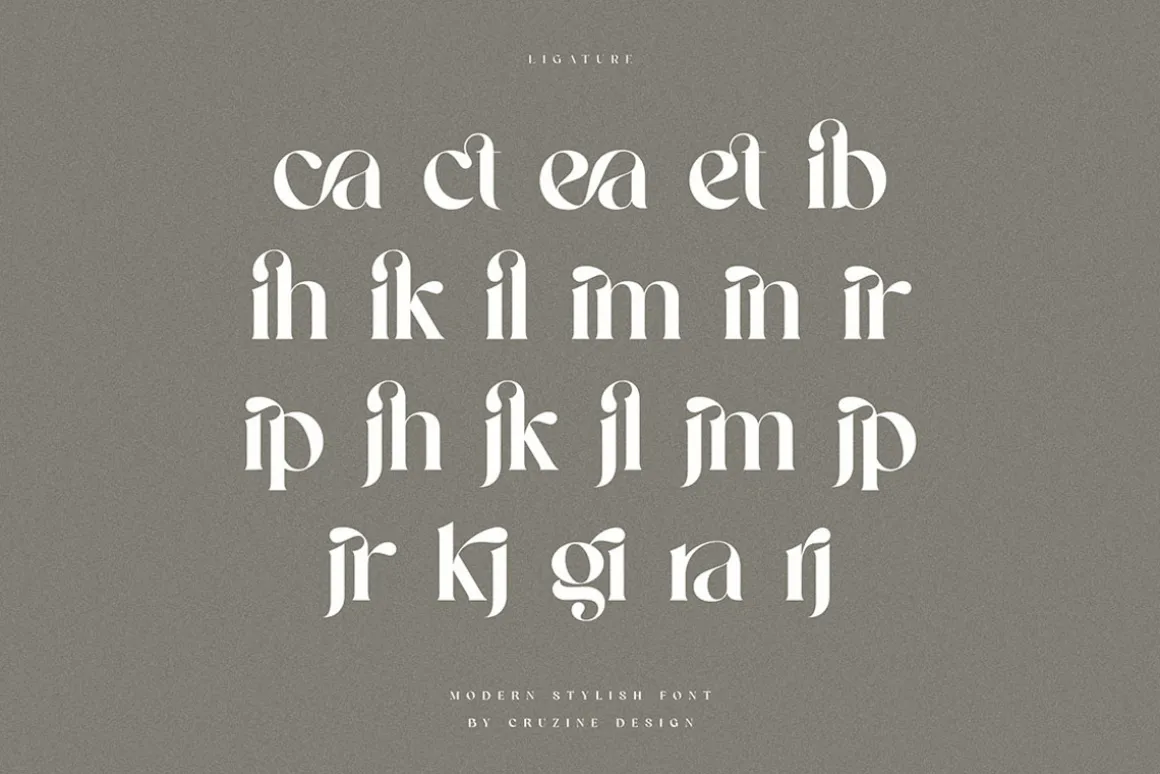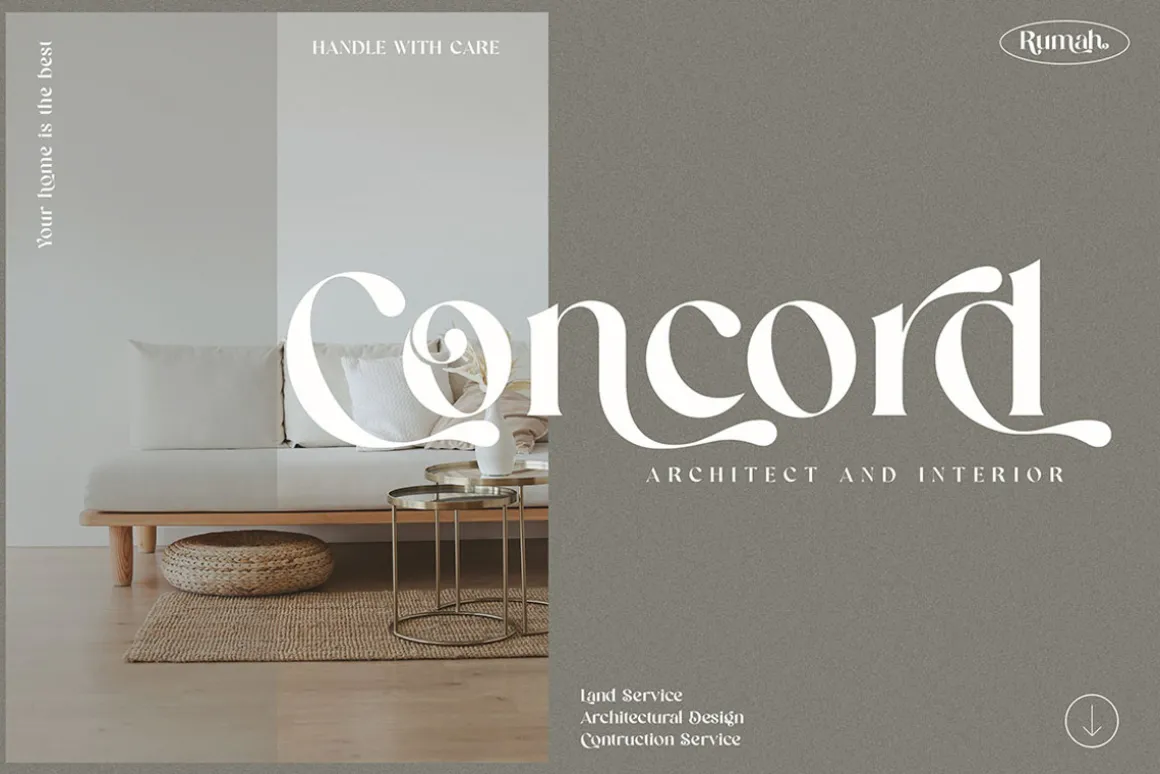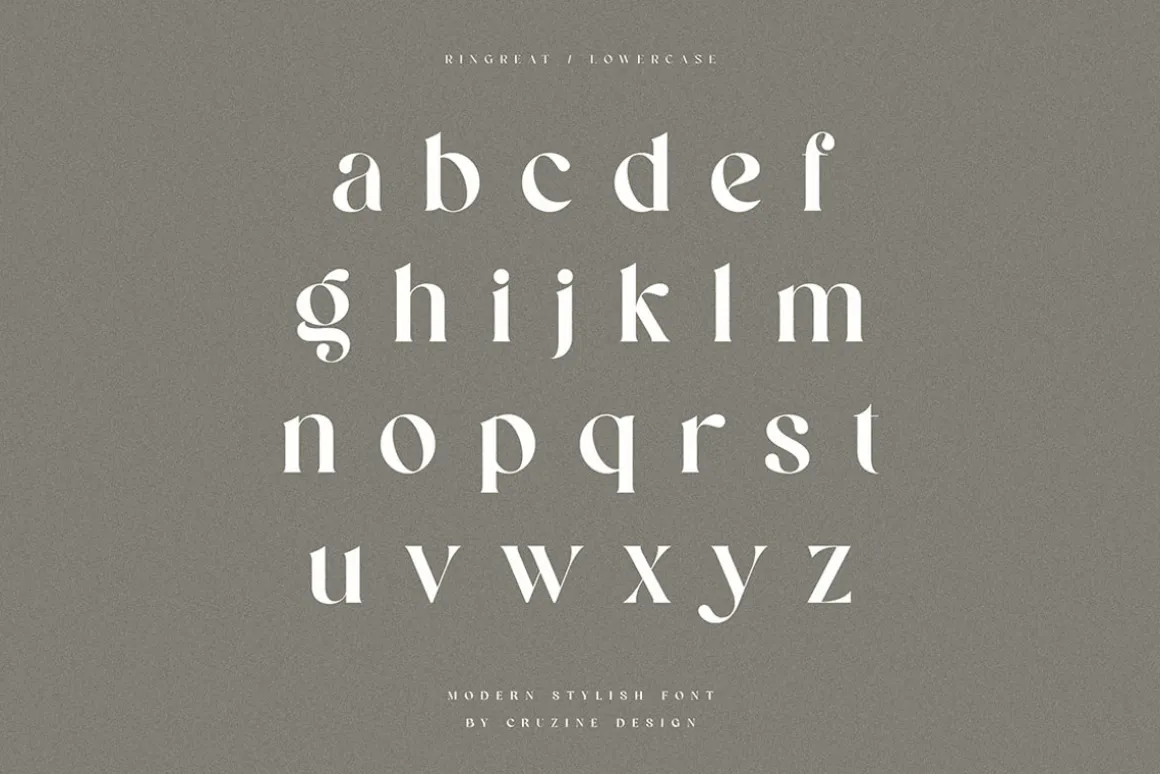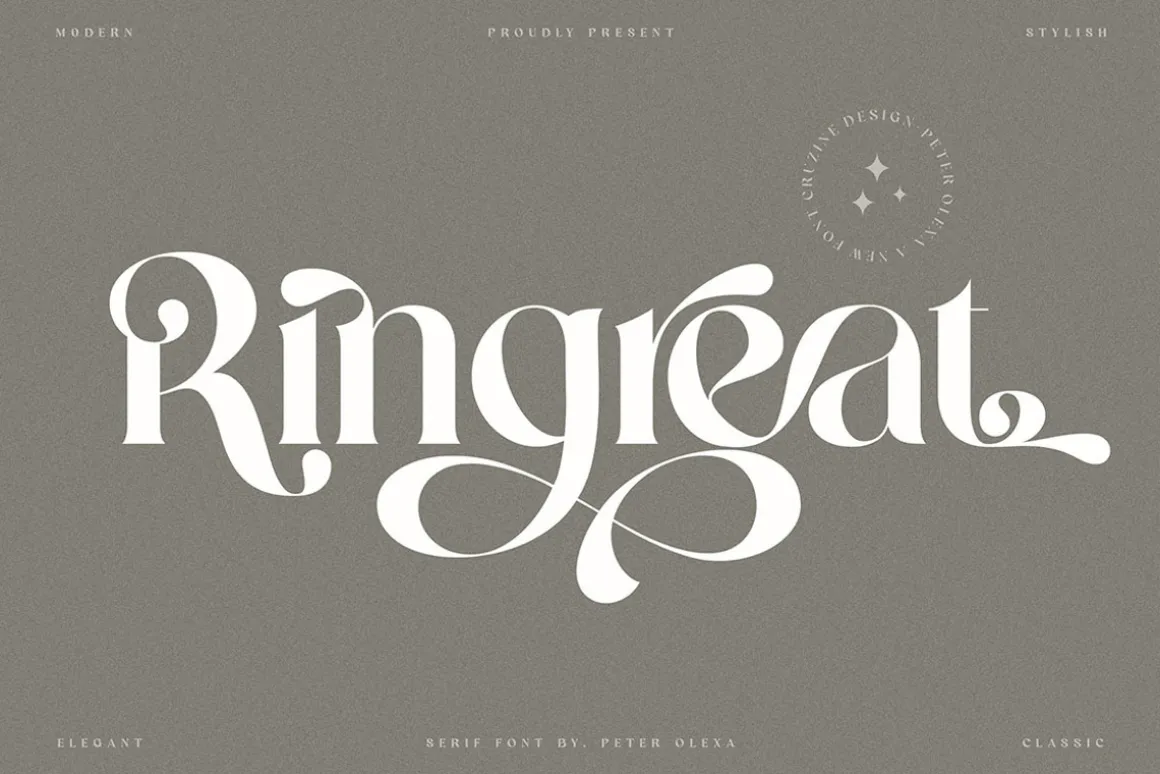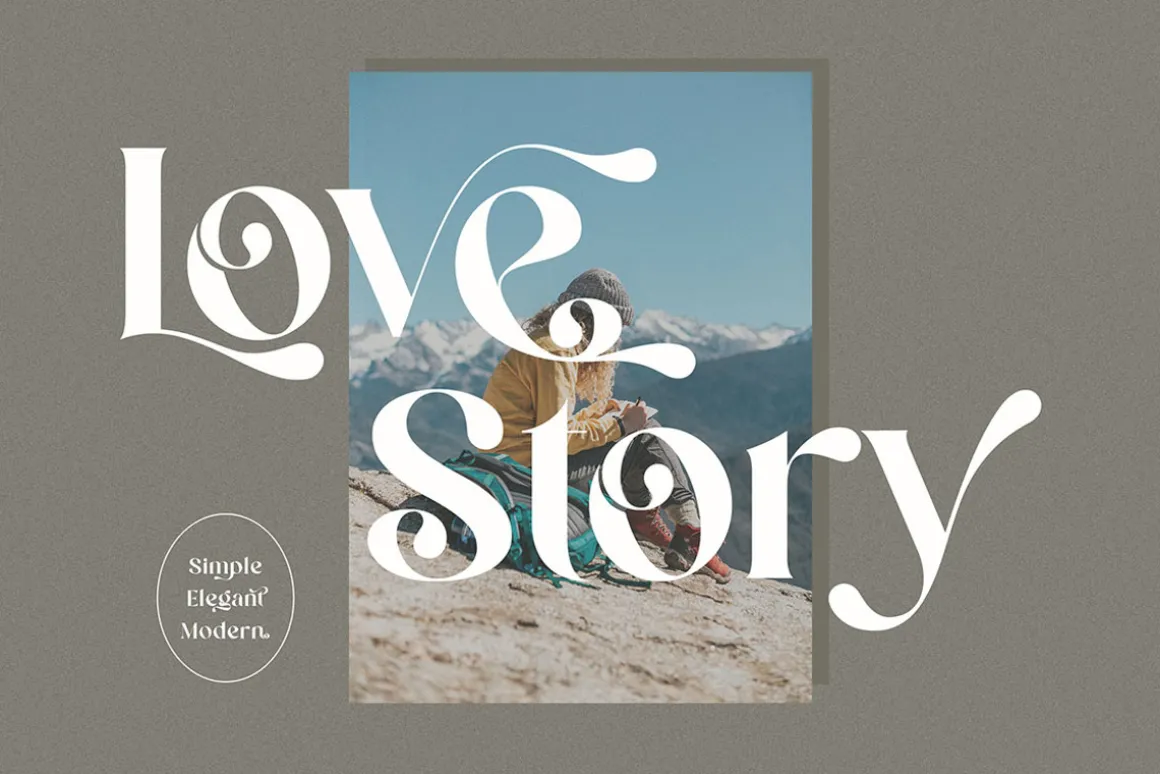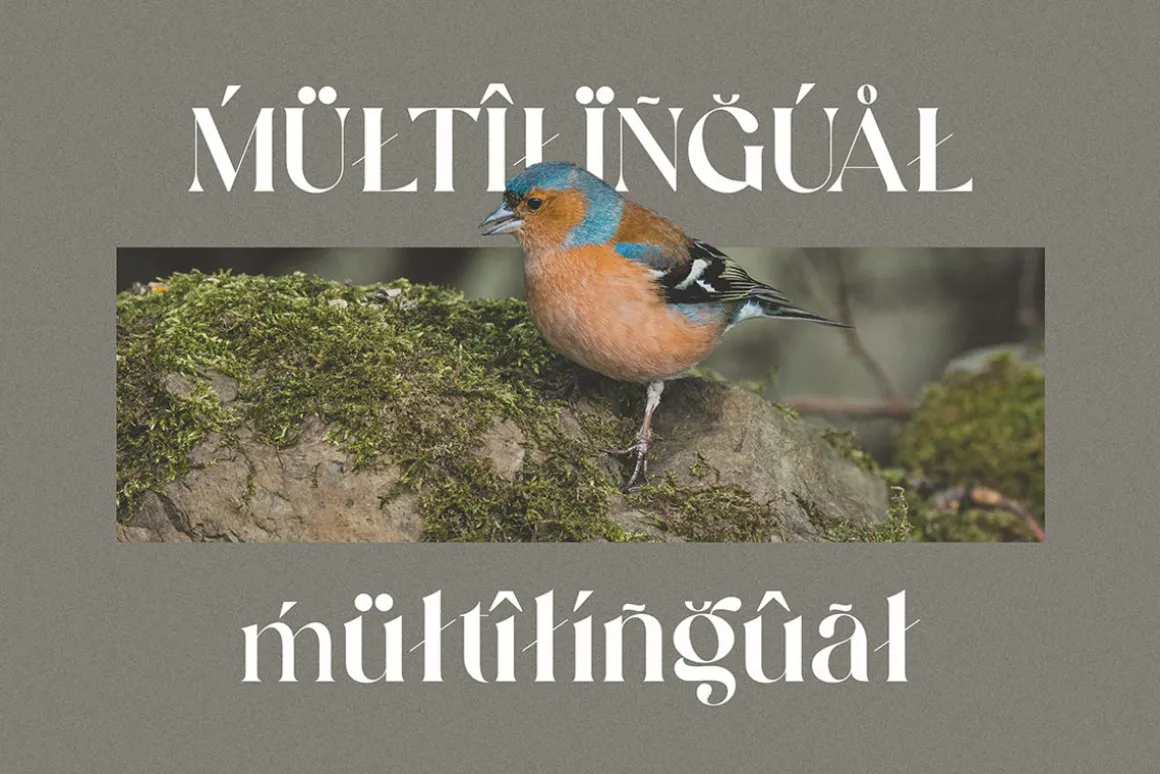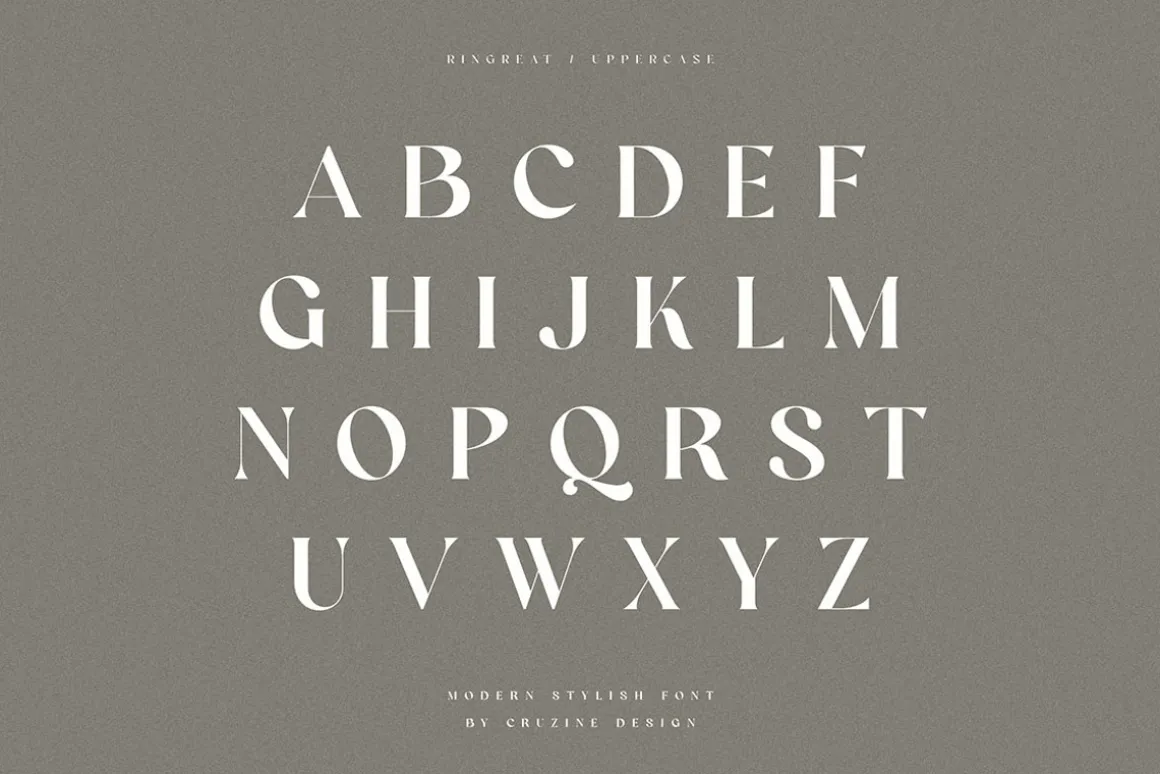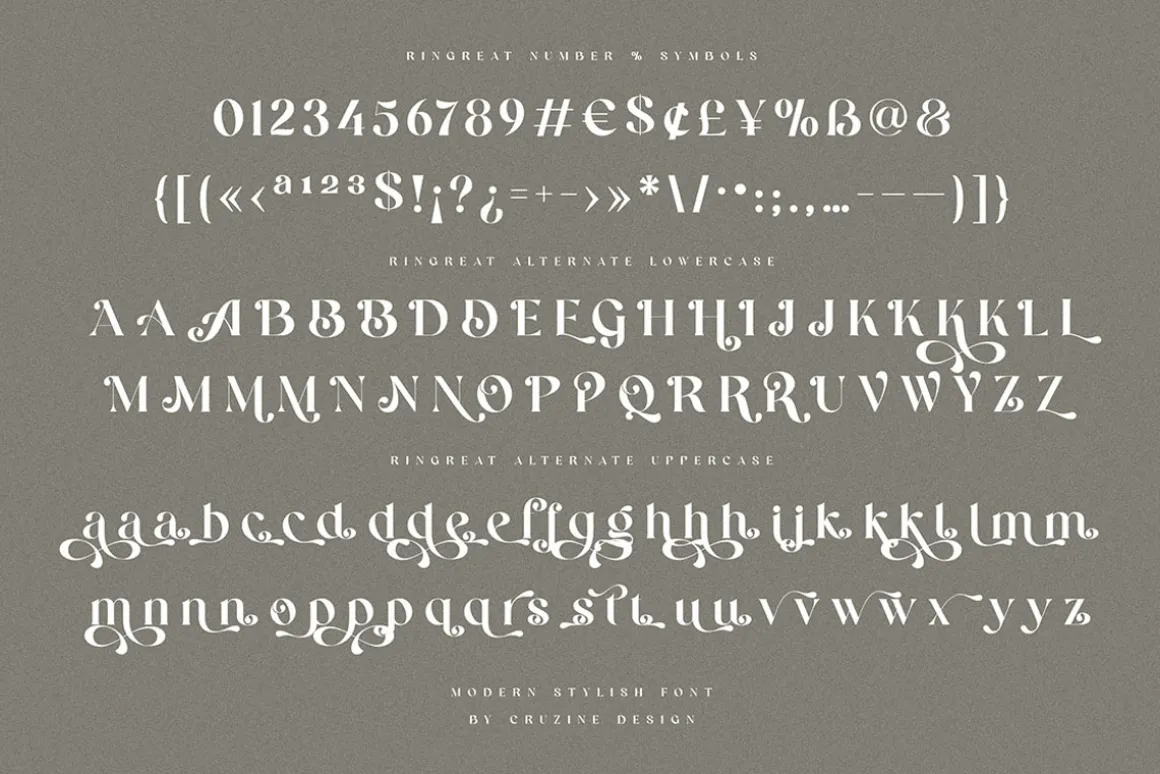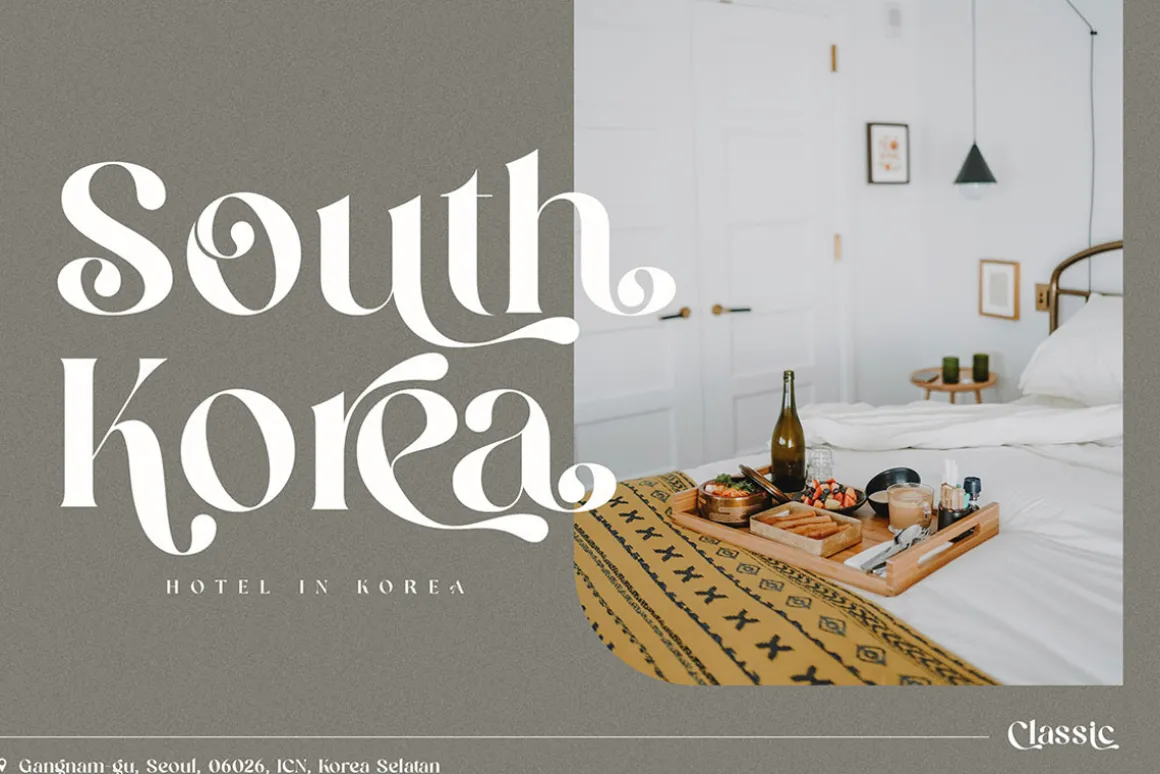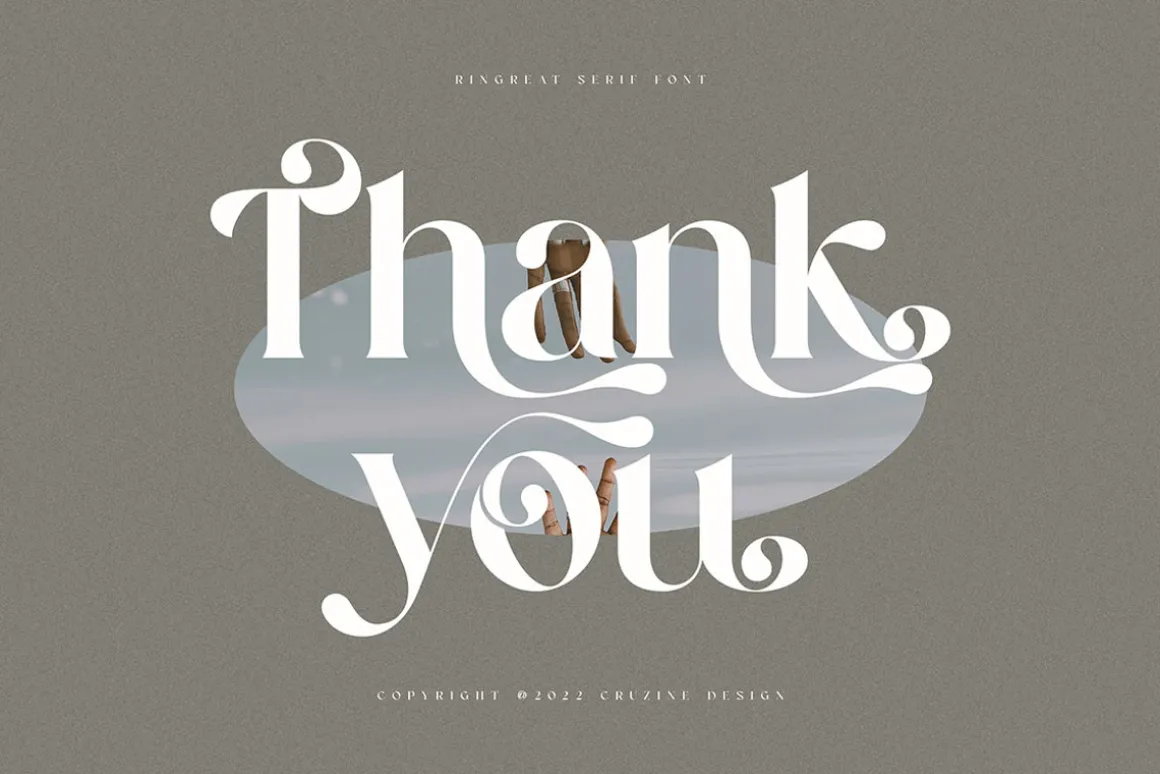
Trendy, bold & modern style serif font for your fancy projects. Elegant, fashion and classic style on Ringreat font will be great for any branding project. Lot of alternates and ligatures will help you to create unique and original logo design or website header! Enjoy 🙂
- Multilingual support
- Lot of alternate characters
- Lot of ligatures
- Great for modern branding projects!